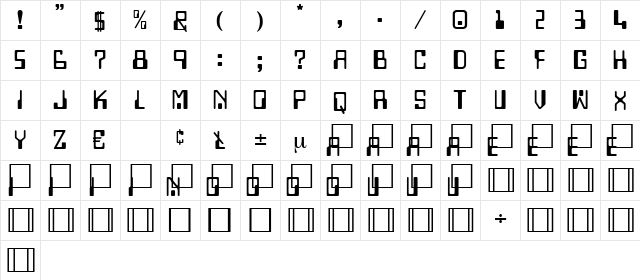
Commander Regular Font Preview
Commander Regular
Commander Regular Font Details
Design Context for Commander Typeface
Commander offers clean, dependable letterforms without strong stylistic allegiance, making it a practical choice for designers who need flexibility.
Pro Tip: Pair Commander with a font of contrasting weight or personality to build a more expressive typographic hierarchy.